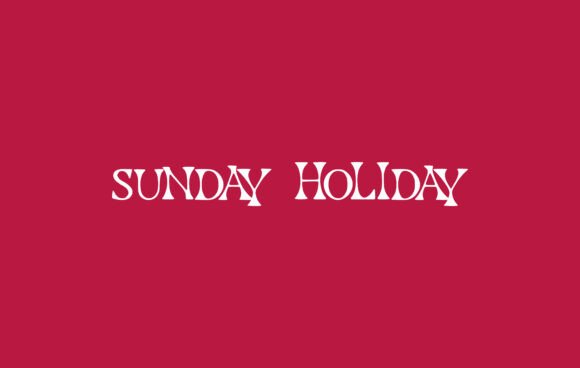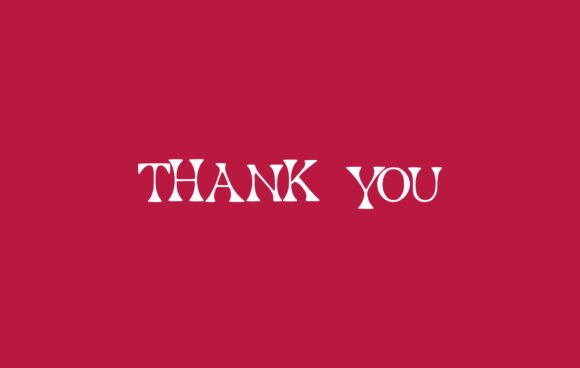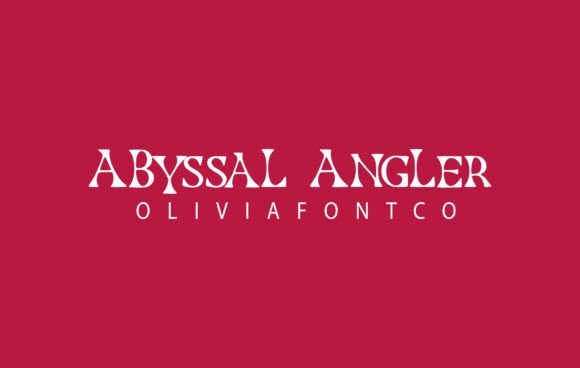
Unleash Your Creativity with the Perfect Handwritten Font
There’s something magical about the first spark of creativity – the moment when an idea begins to take shape, and the possibilities seem endless. For designers, this moment is a thrill that can happen at any time, whether it’s brainstorming a new project or tweaking a design to perfection. And what better way to capture that creative essence than with a font that feels as personal and unique as a handwritten note?
Enter the Abyssal Angler Font, a beautifully crafted handwritten font that adds a touch of romance and elegance to any design. Whether you’re working on a magazine headline, social media campaign, or wedding invitation, this font is the perfect companion to bring your ideas to life. With its legibility and versatility, Abyssal Angler Font is an invaluable asset for designers looking to elevate their work and connect with their audience on a deeper level.
Abyssal Angler Font Key Features
- Unique Characteristics: The Abyssal Angler Font features a unique blend of organic and geometric elements, resulting in a distinctive, hand-drawn aesthetic that adds a touch of sophistication to any design.
- Kerning and Ligatures: The font includes advanced kerning and ligature pairs, ensuring that text sets are visually appealing and professional-looking.
Abyssal Angler Font Review
Abyssal Angler Font has been an interesting addition to my design toolkit. Overall, I’d say it’s a solid choice for projects that require a unique, underwater-inspired aesthetic. ✨ Here are a few things that work well:
- ✨ Unique character set: The font features a range of quirky, hand-drawn characters that are sure to add a touch of whimsy to any design.
- ✨ Good legibility: Despite its unconventional design, the font is surprisingly easy to read, making it suitable for a range of applications.
- ✨ Customization options: The font’s author has included a range of weights and styles, allowing designers to experiment with different looks and feels.
- ⚠️ Limited language support: The font’s character set is geared towards English, making it less suitable for multilingual designs.
- ⚠️ Limited font sizes: While the font looks great at medium to large sizes, it can become distorted or difficult to read at very small sizes.
- ⚠️ Overuse potential: The font’s unique design can be a double-edged sword – while it’s great for adding interest, it can also become overwhelming if overused.
Overall, I’d recommend Abyssal Angler Font to designers who are looking for a quirky, underwater-inspired aesthetic. Just be sure to use it judiciously and consider its limitations when making design decisions.
For the best results, use the Abyssal Angler Font in bold or italic styles to create a dramatic effect.
It is ideal for use in horror or sci-fi themed designs, as well as in titles and headings for a touch of elegance and sophistication.